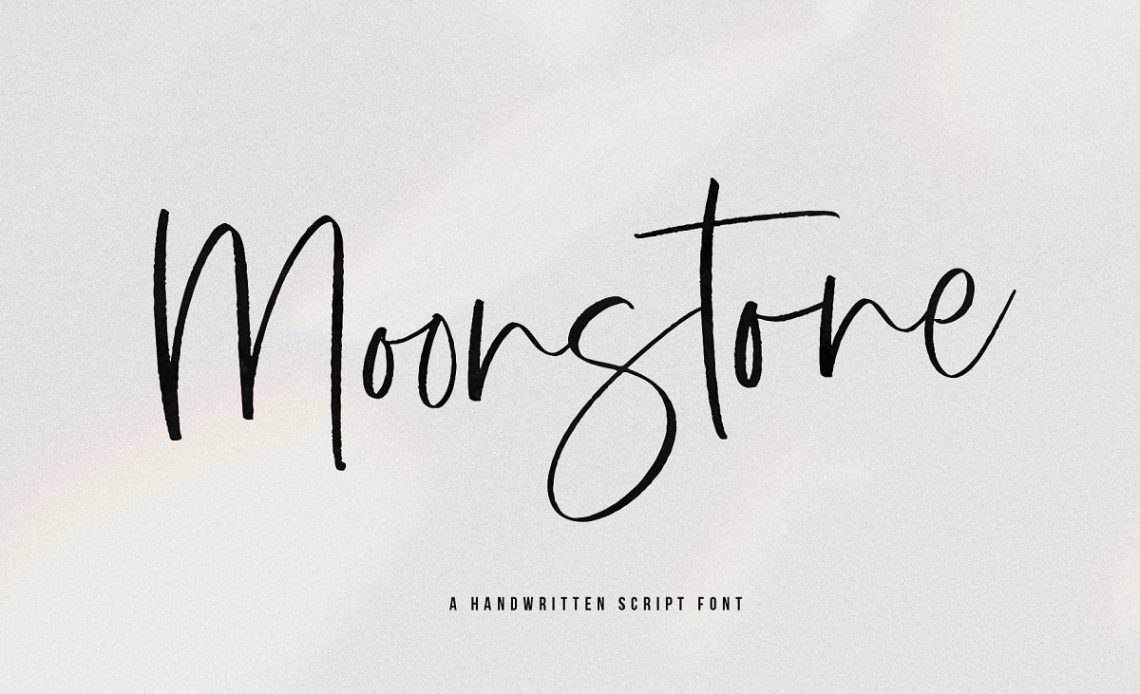
Are you looking for a font that will add a touch of elegance and uniqueness to your designs? Look no further than Moonstone, the latest creation by Kaitlynn Albani. This stunning handwritten script font is a must-have for any designer or entrepreneur looking to elevate their brand to the next level.
Moonstone's chic and playful brush texture is perfect for any project, from logos to social media posts, websites to blogs. With its thin modern calligraphy look, Moonstone exudes sophistication and class, making it ideal for fashion, beauty, and lifestyle brands. And with both OTF and TTF files included, you can easily incorporate Moonstone into any digital design.